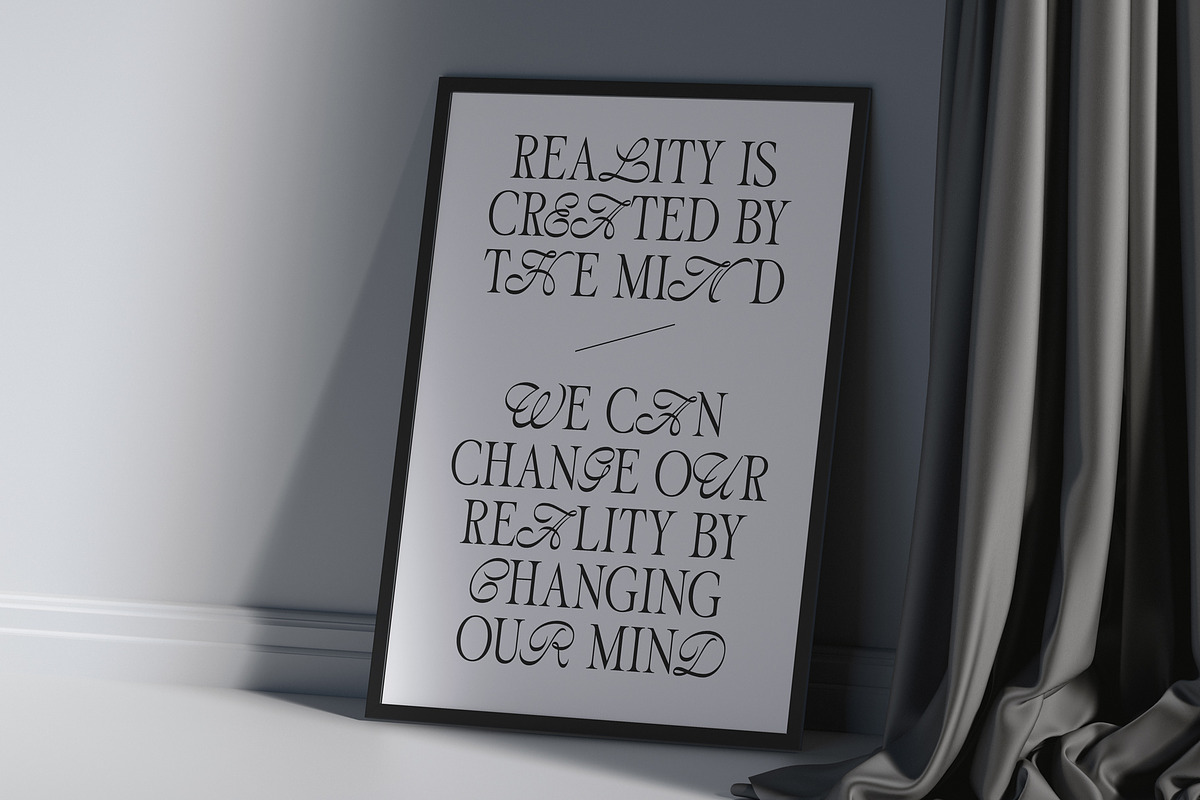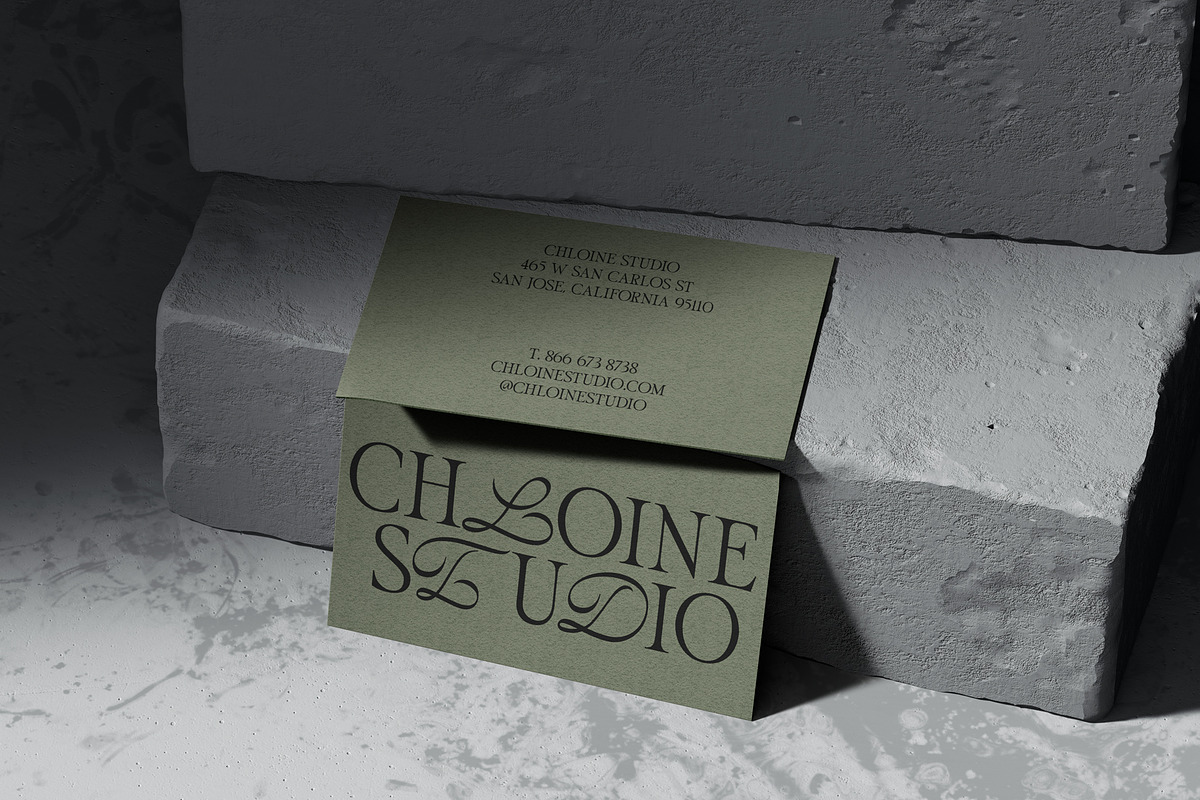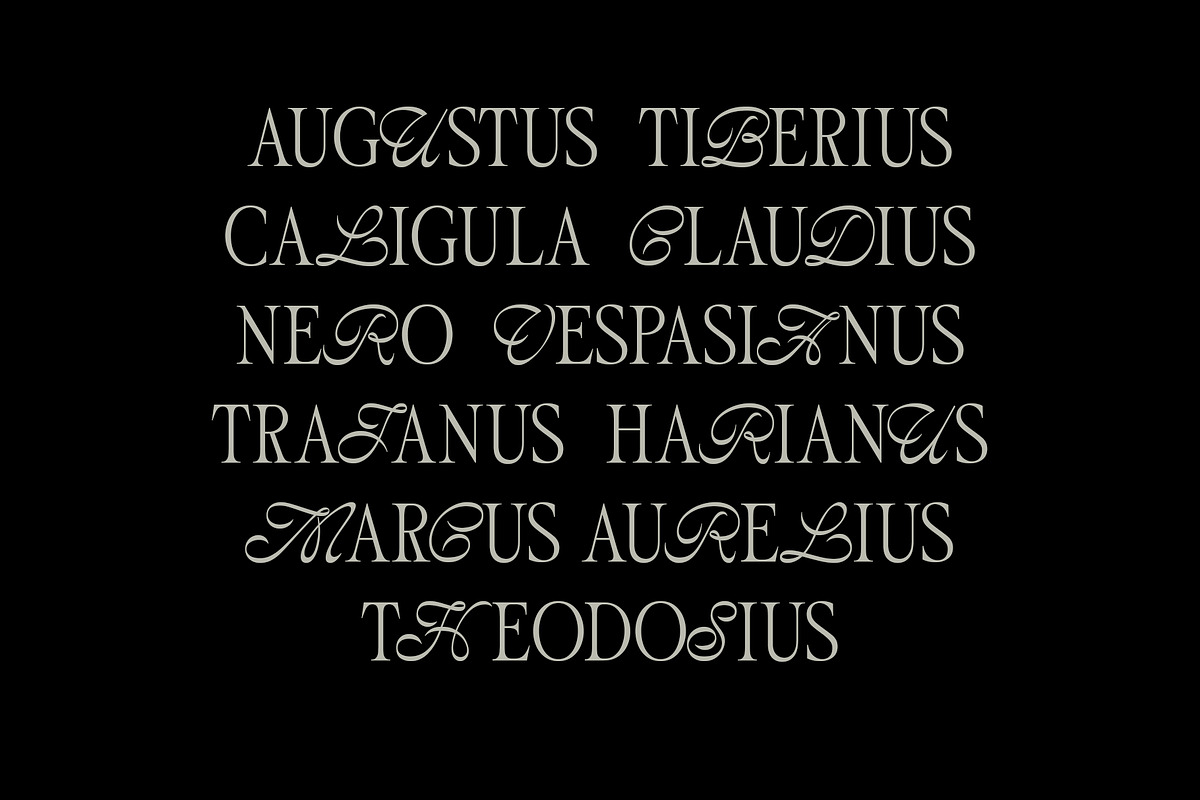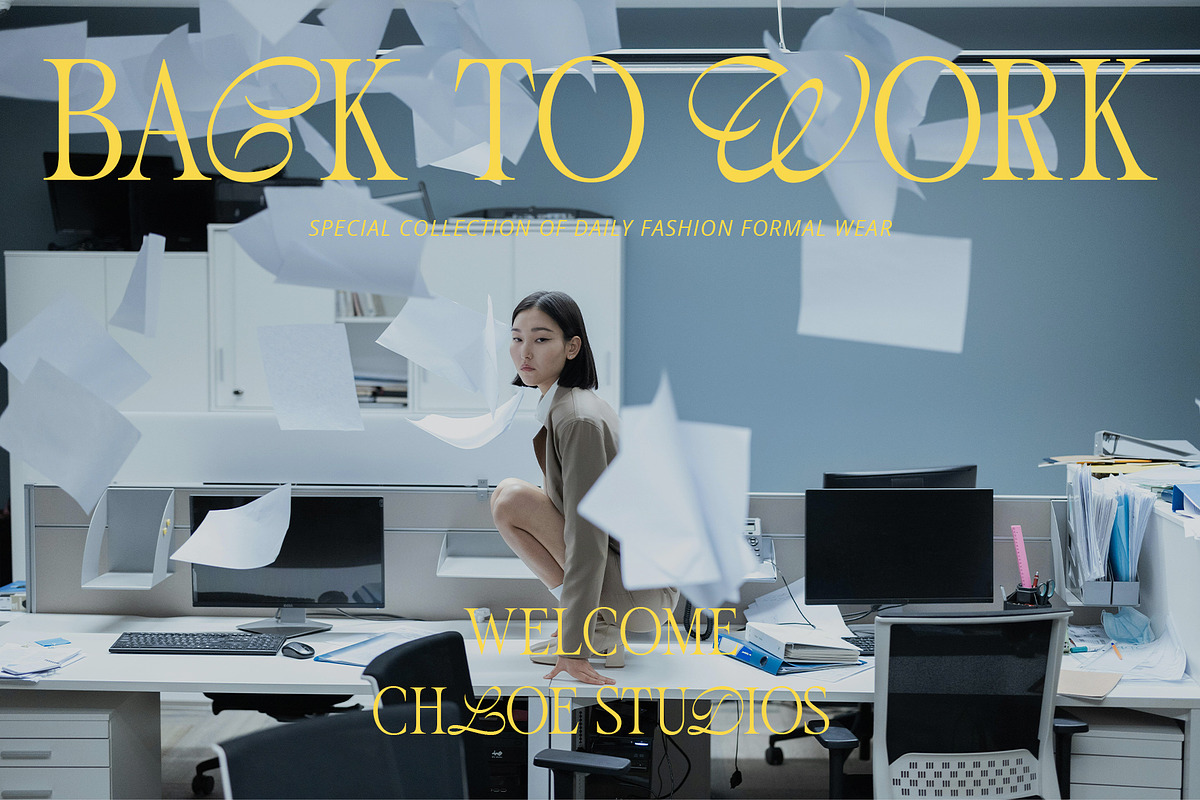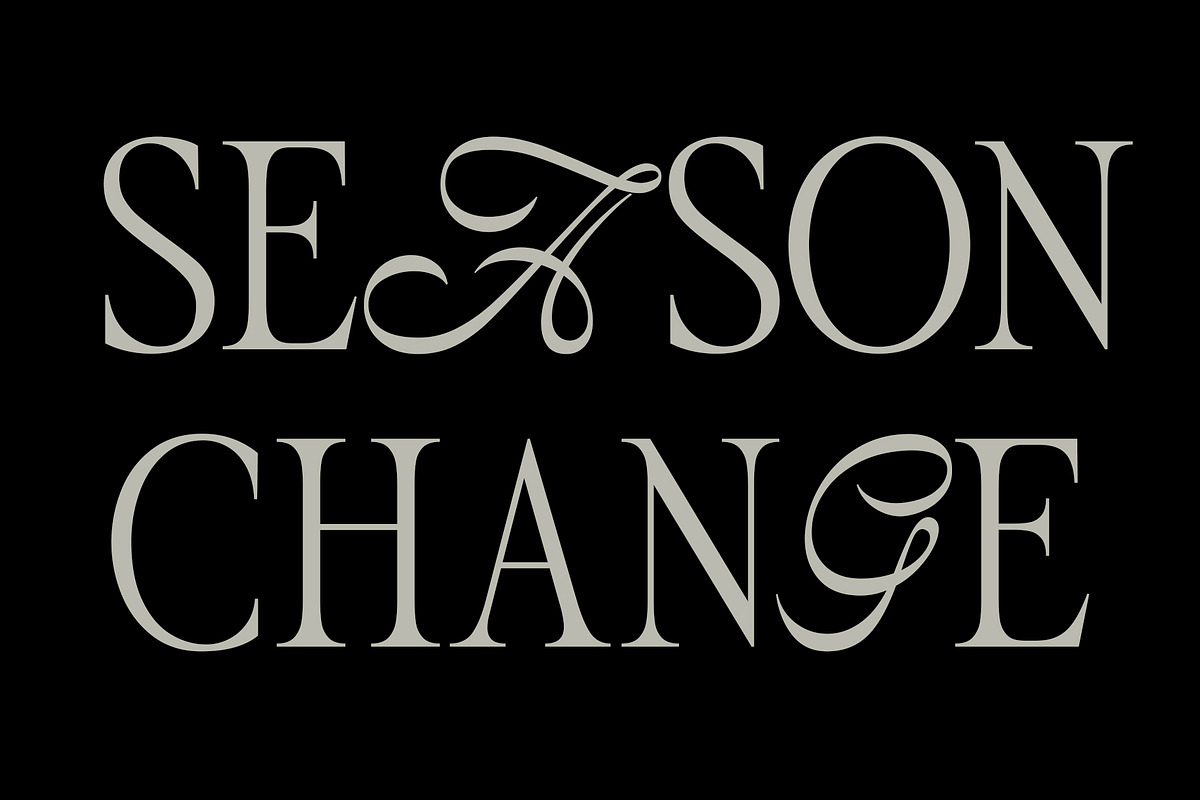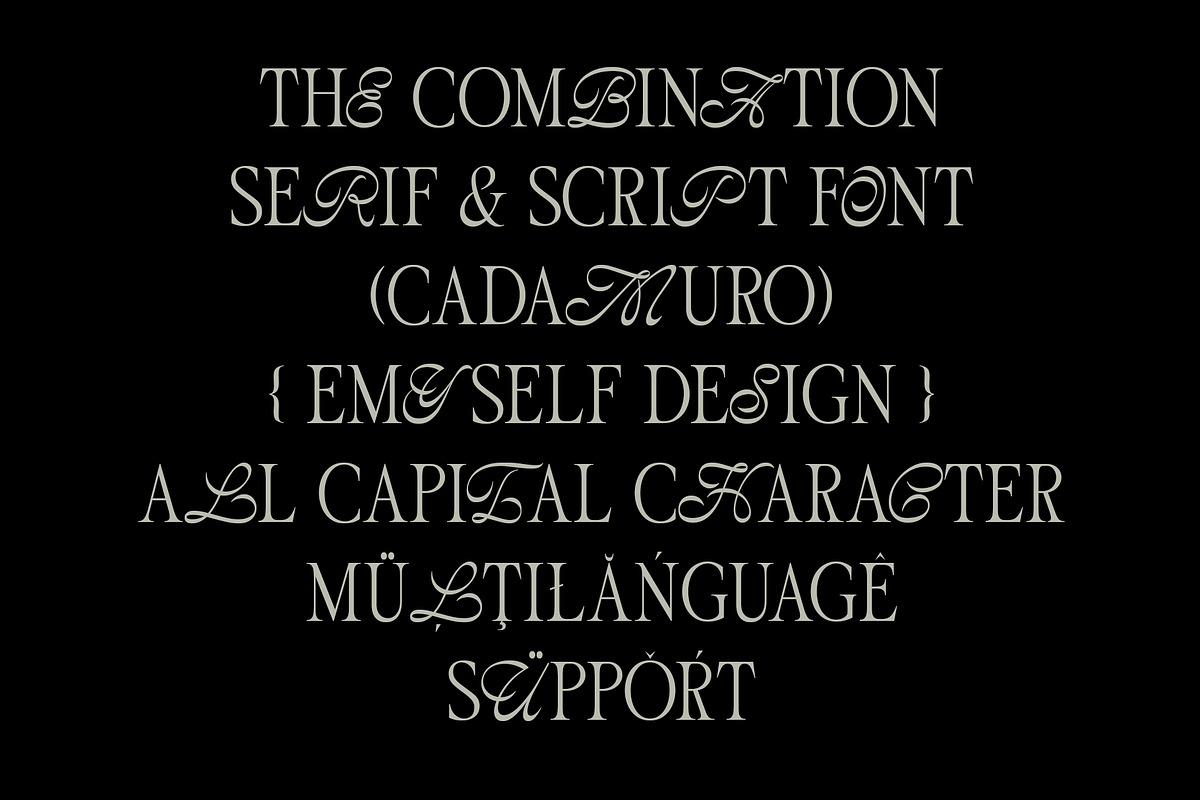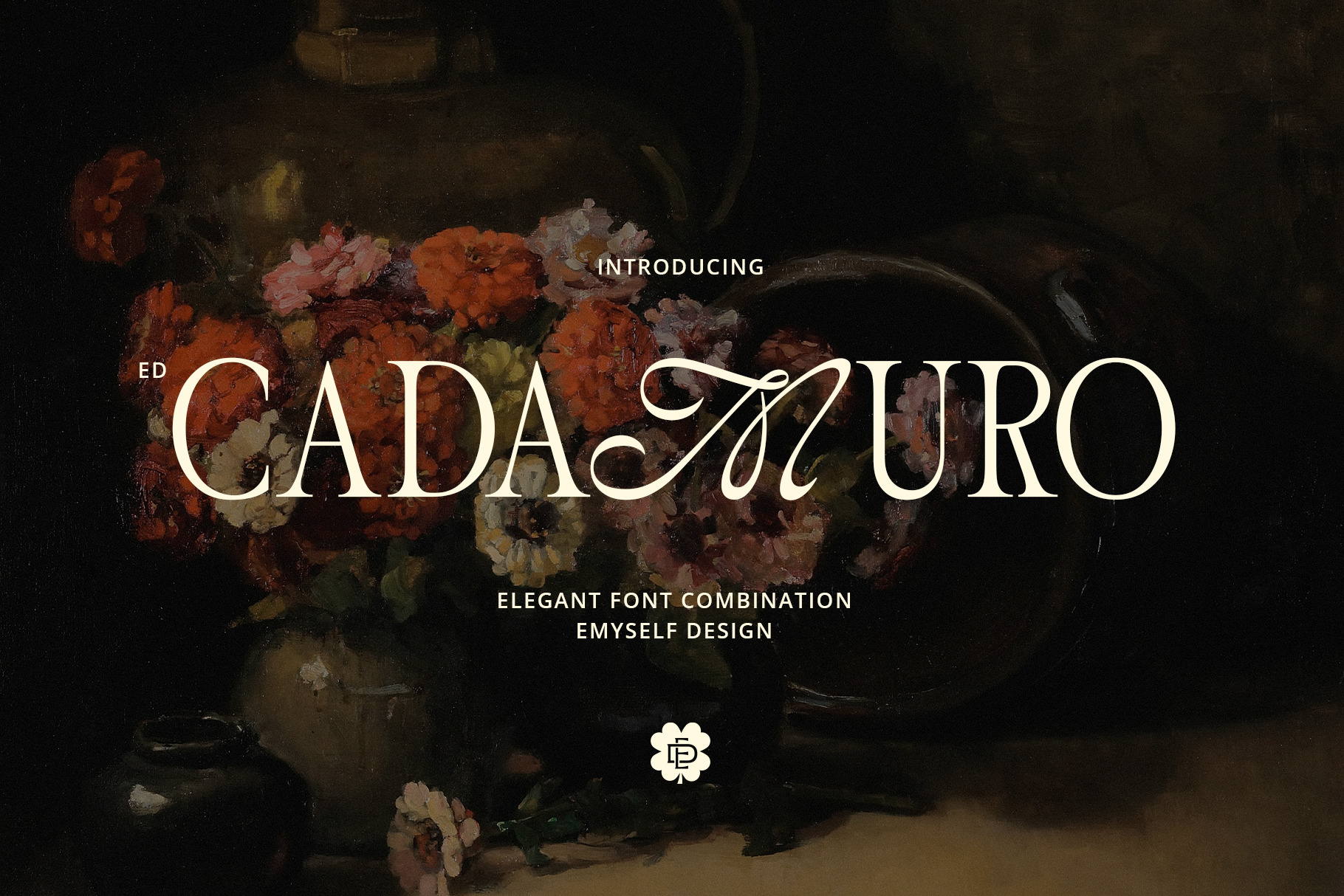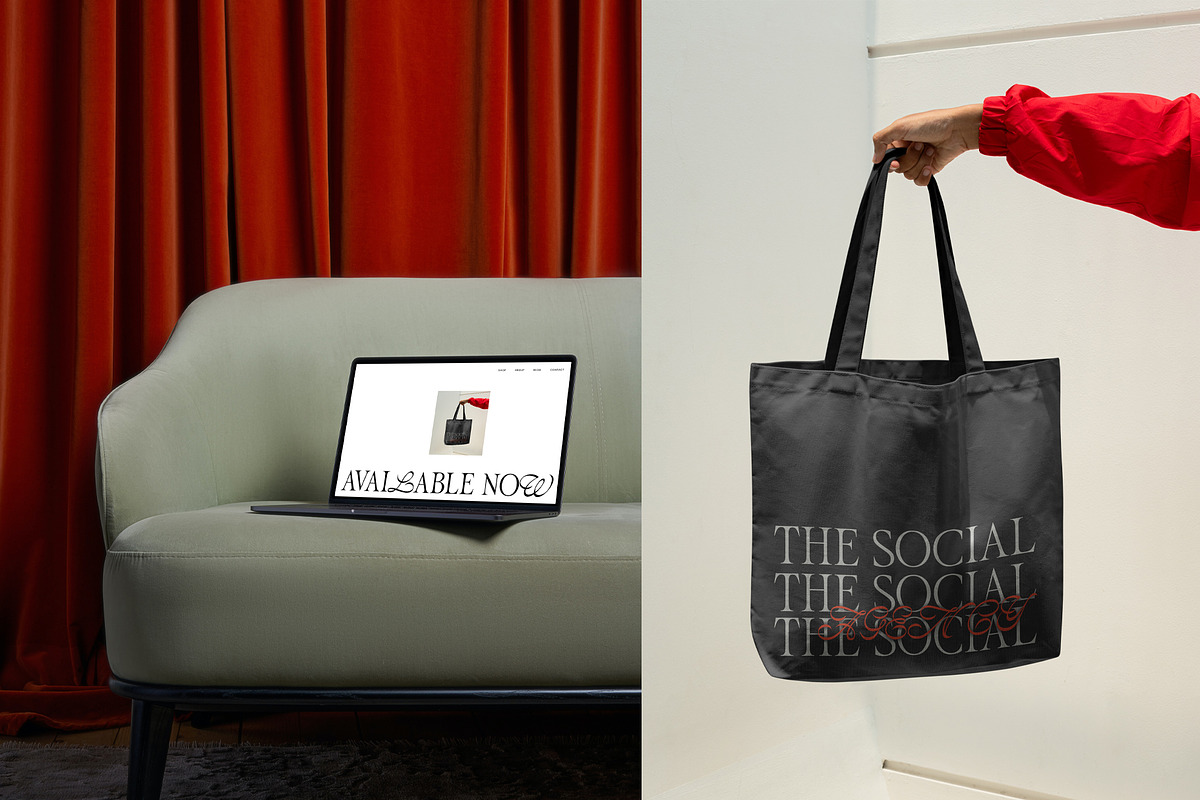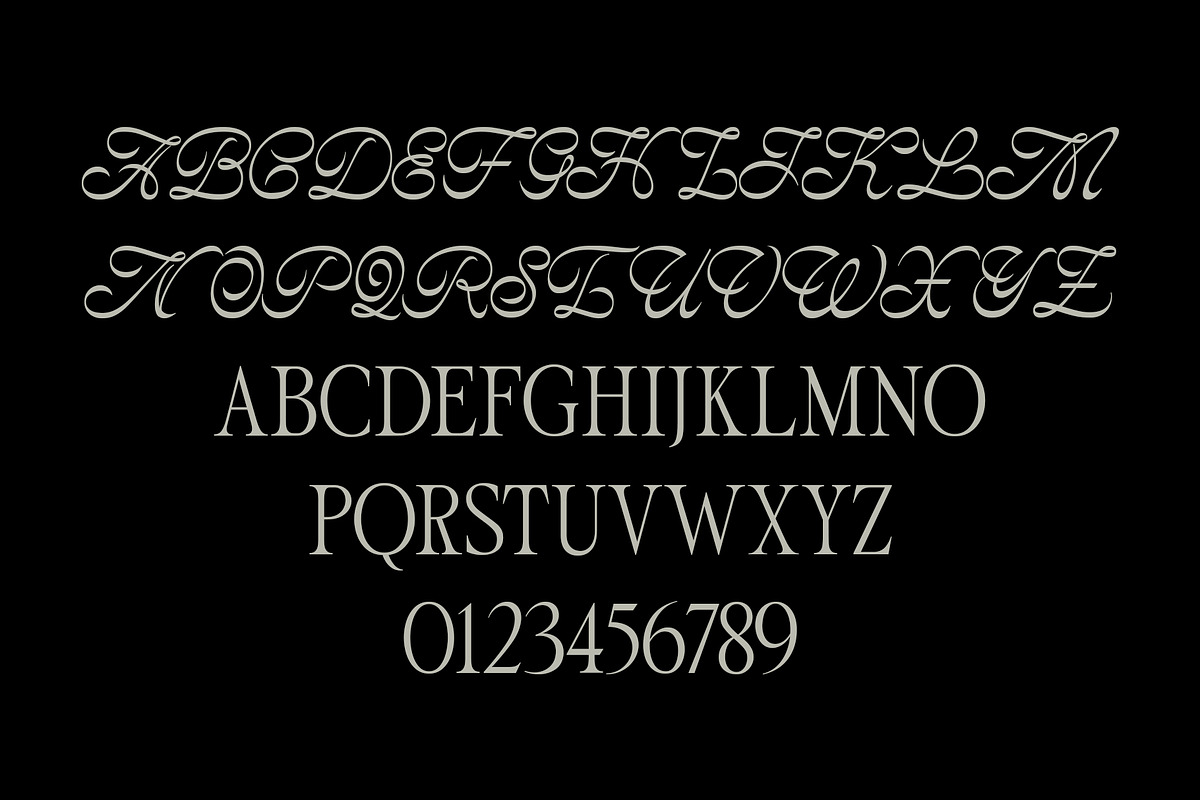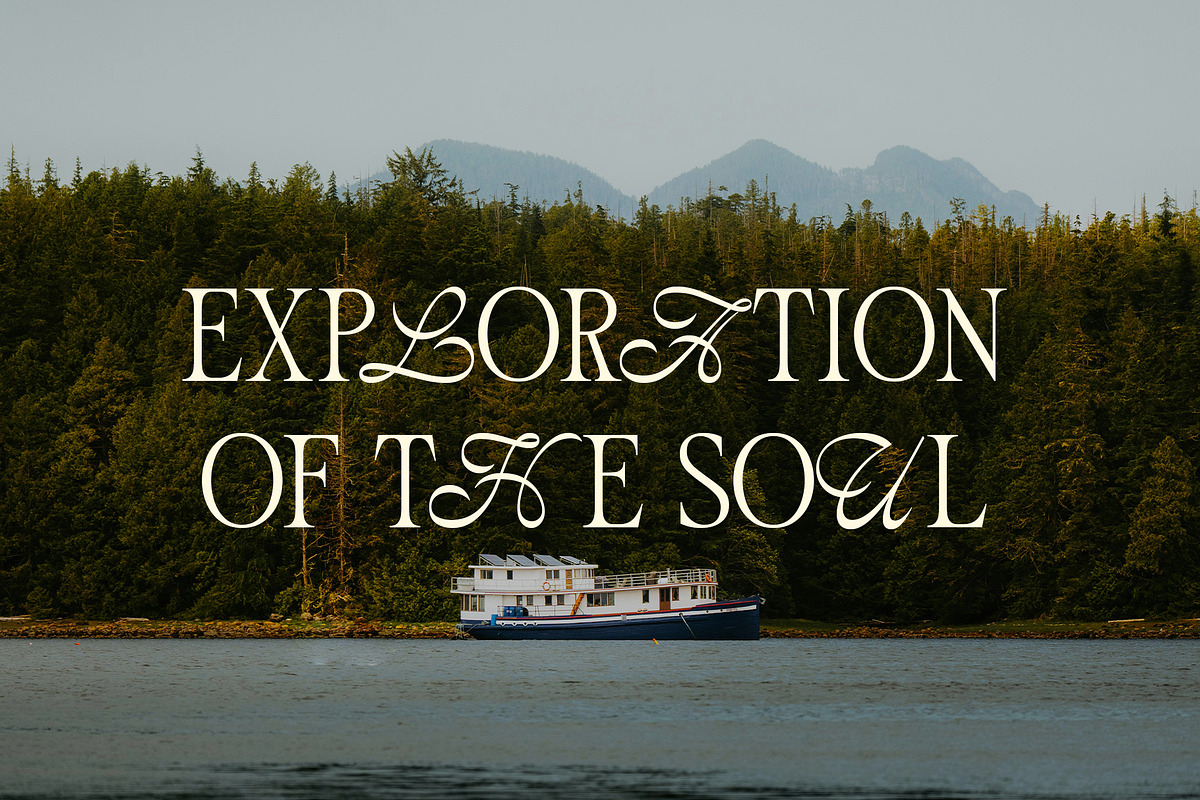
ED Cadamuro - Combination font
Cadamuro is a harmonious blend of the classic beauty of serif fonts and the flexibility of script fonts. With its modern and elegant design, this font offers a unique and charming look. The smooth curves of the letters give a luxurious impression, while the strong serif structure ensures optimal readability.
This font is perfect for design projects that require a touch of elegance and uniqueness, such as company logos, apparel, or editorial designs. With 'Cadamuro', you can create unforgettable designs and captivate your audience's attention.
- Total Glyph: 358
- Punctuation and Marks